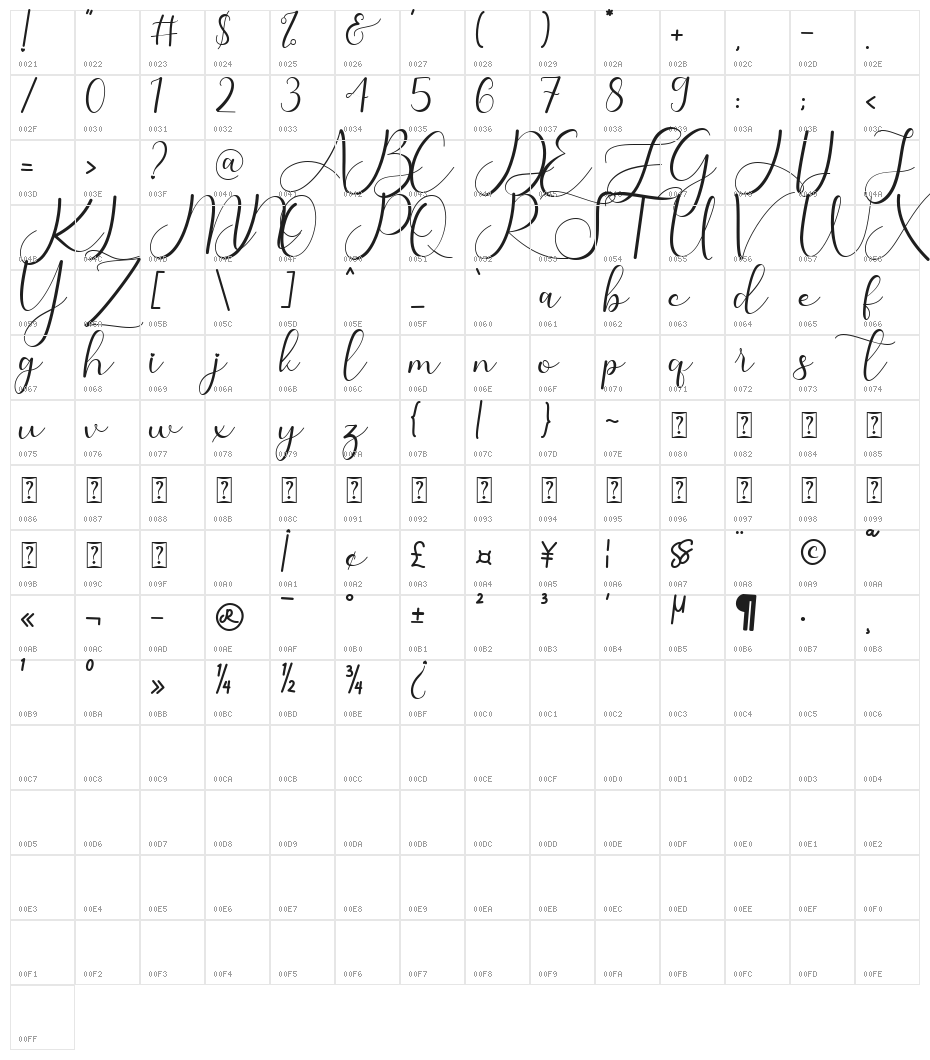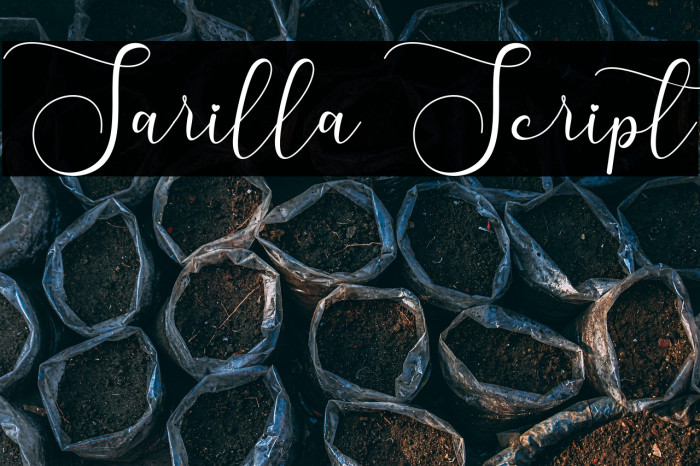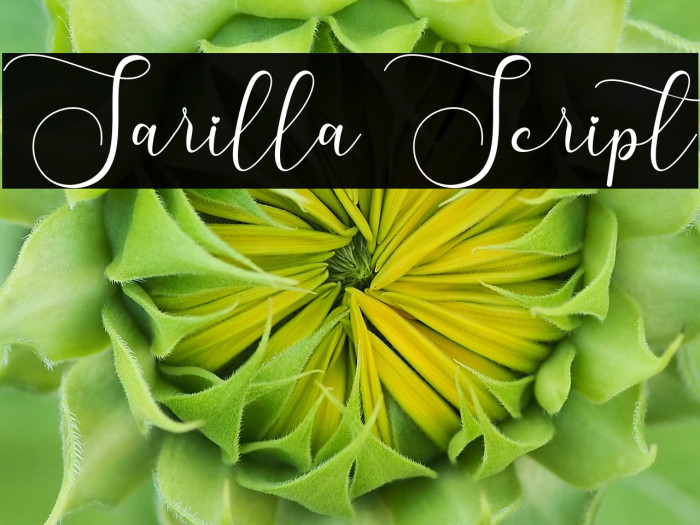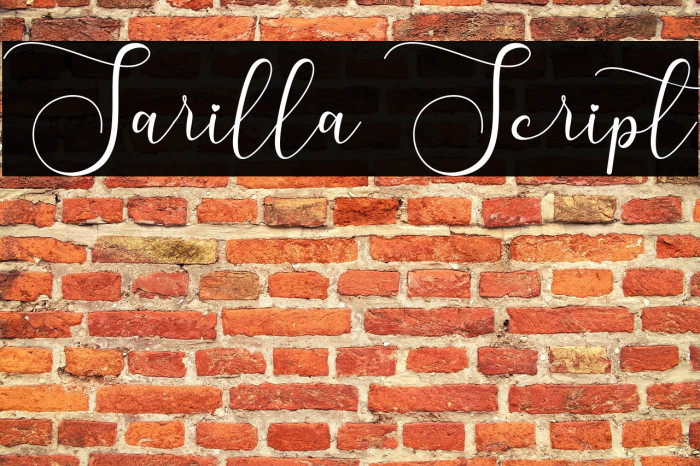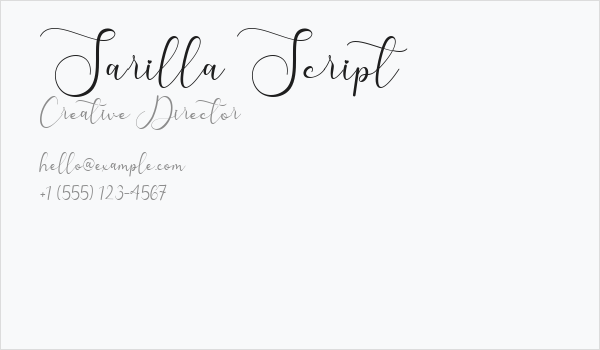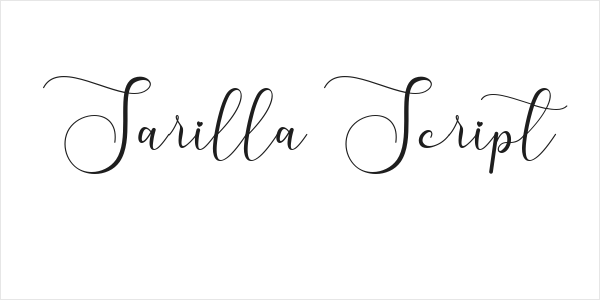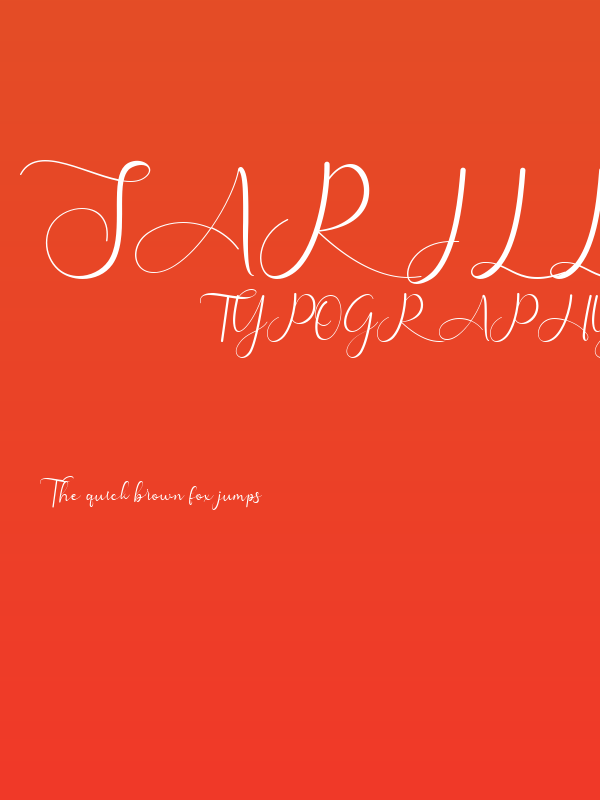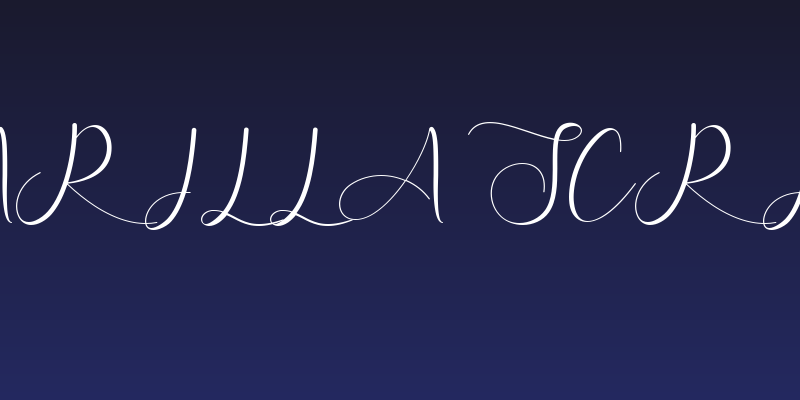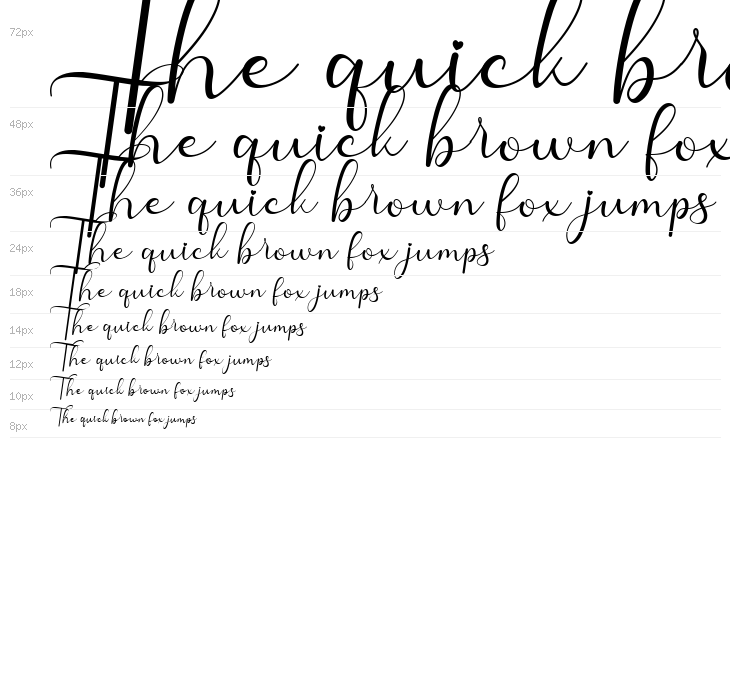
Sarilla Script Font
Sarilla Script Description
This font exudes elegance and fluidity, characterized by its graceful, flowing script style. The letters are interconnected with smooth, sweeping curves, giving it a handwritten appearance. The uppercase letters are ornate, with elaborate loops and flourishes, while the lowercase letters maintain a consistent, flowing baseline. The numerals and special characters are designed with the same attention to detail, ensuring a cohesive look across all glyphs. This font is perfect for adding a touch of sophistication and charm to any design project.
| Overall Style | Elegant, Decorative |
| Use Case | Logos, Invitations, Decorative text |
| Proposed Projects | Ideal for wedding invitations, greeting cards, branding, and elegant logo designs. |